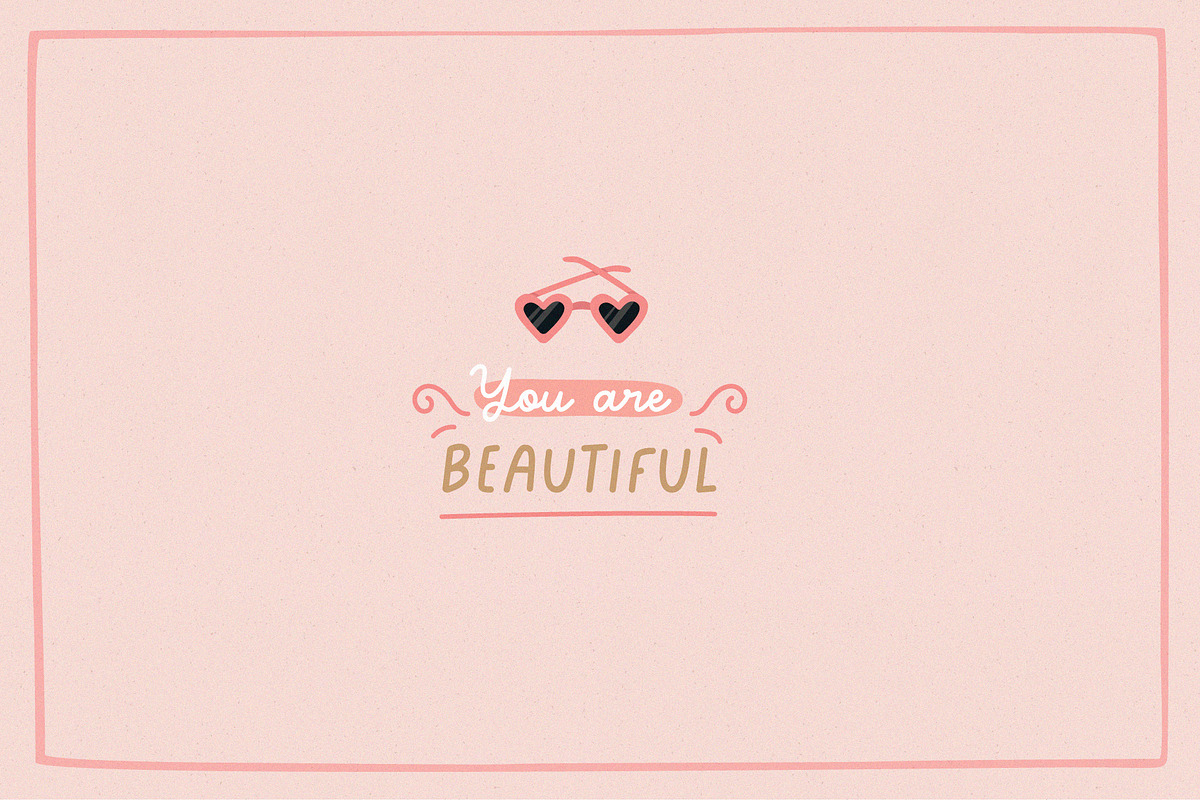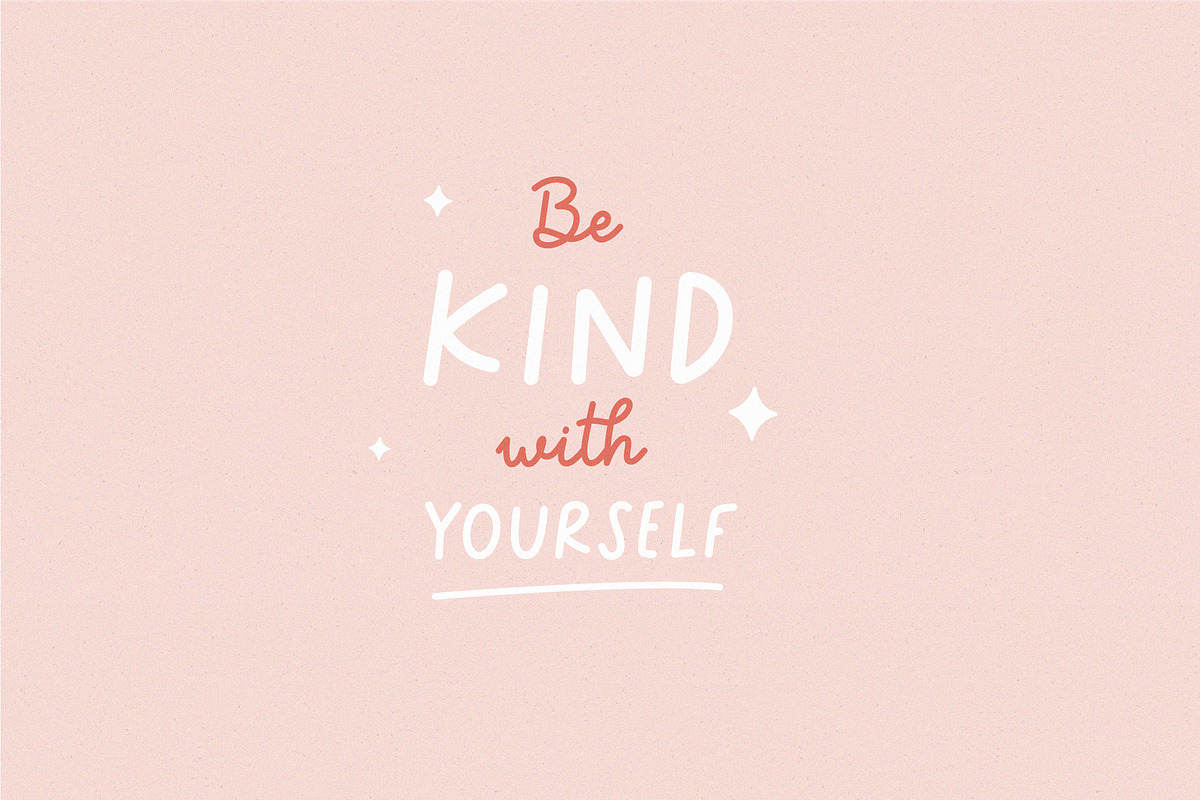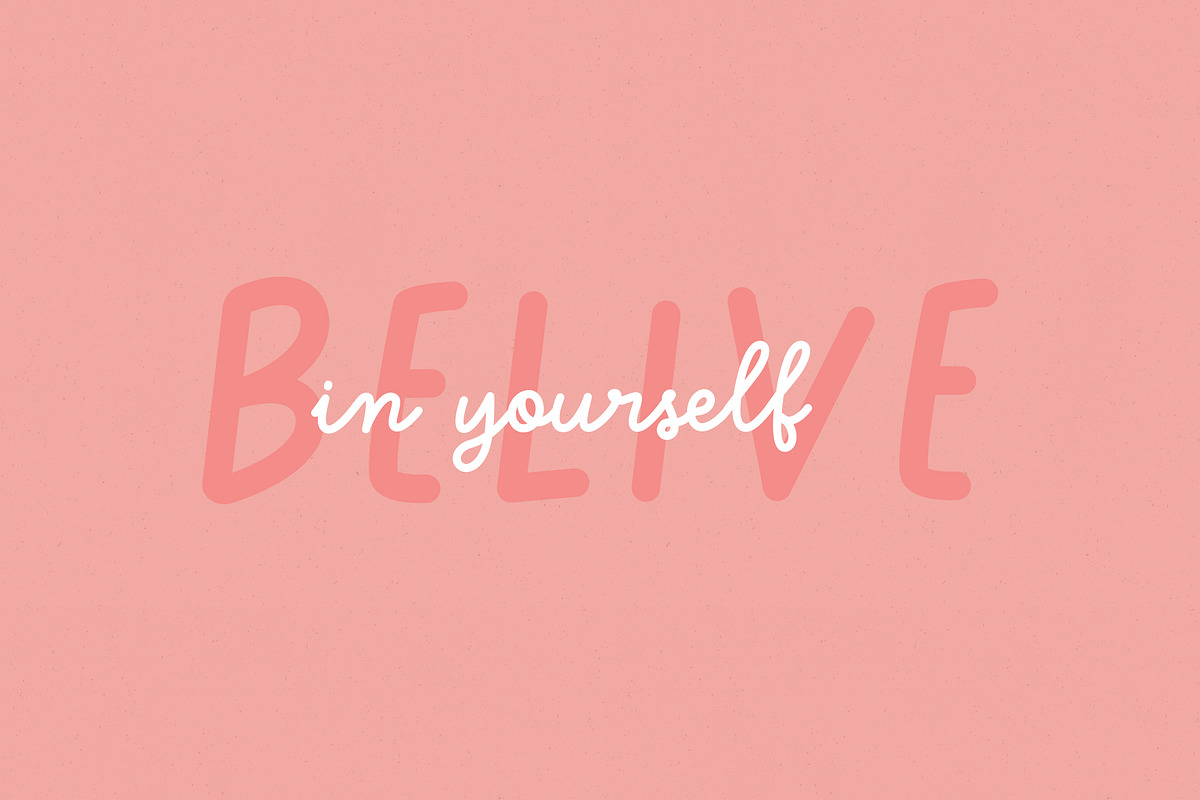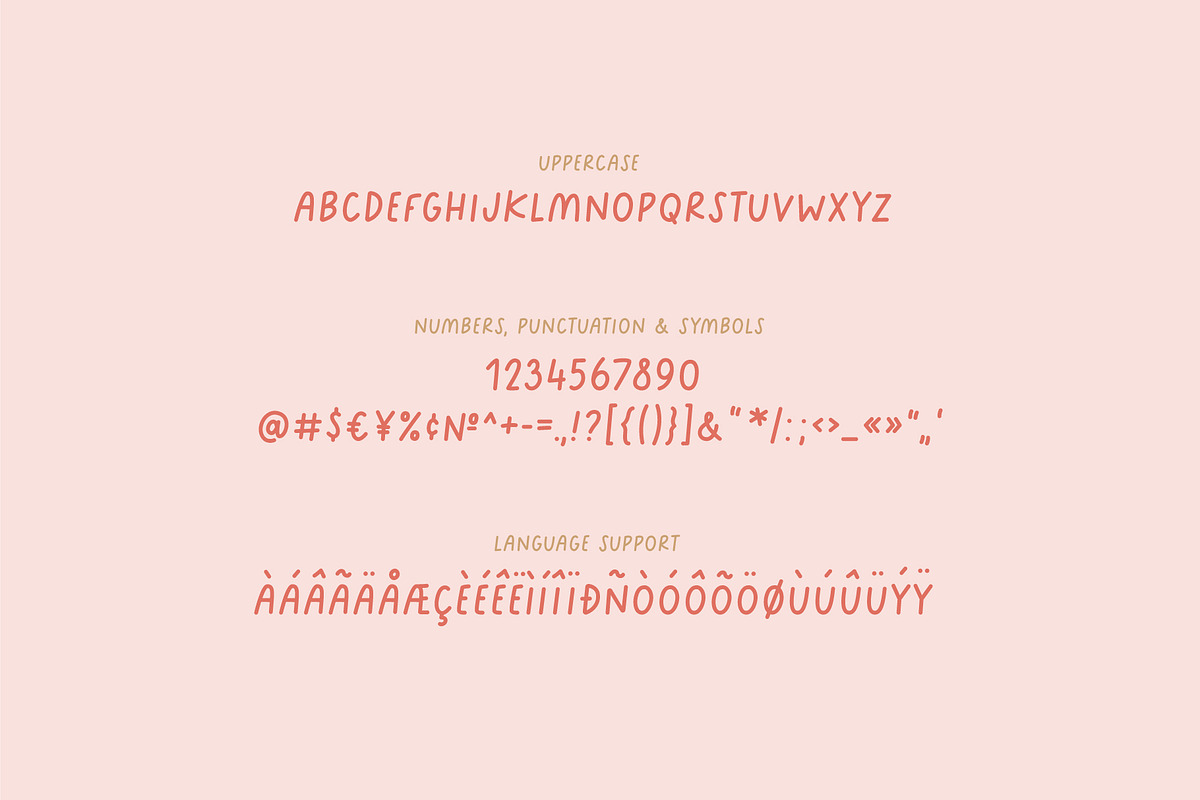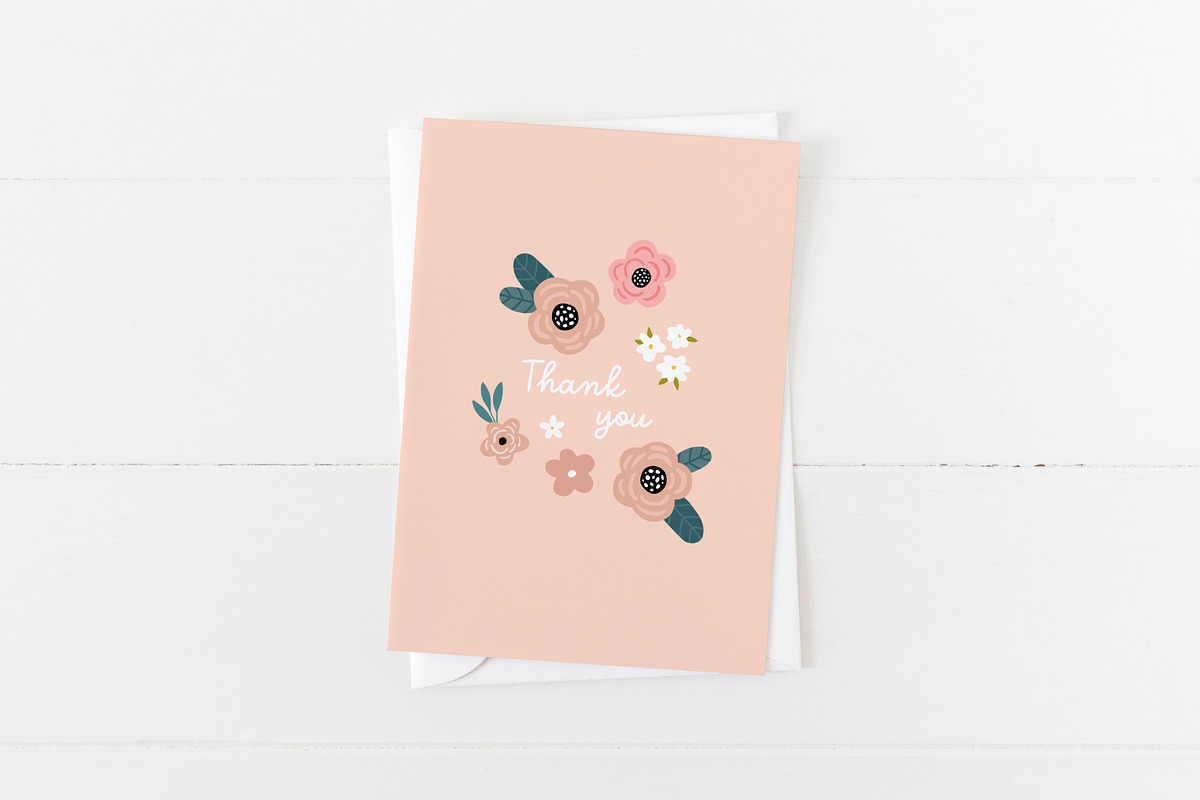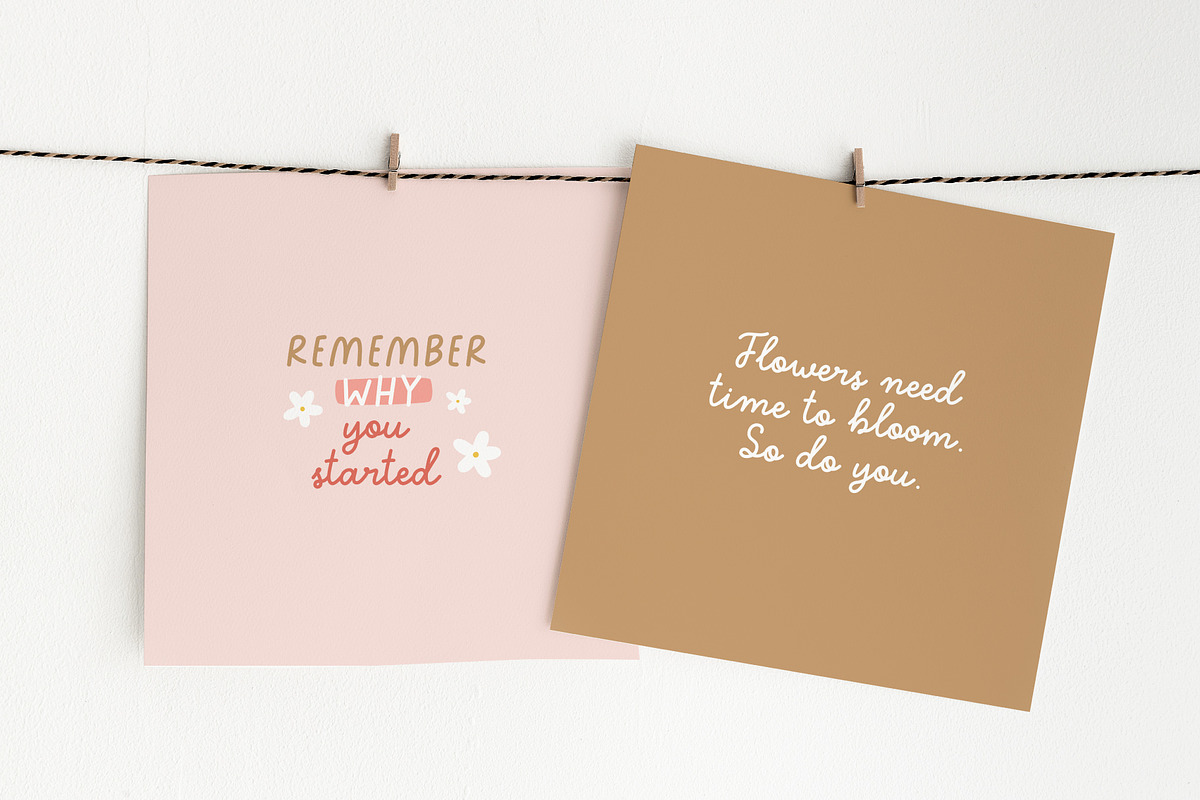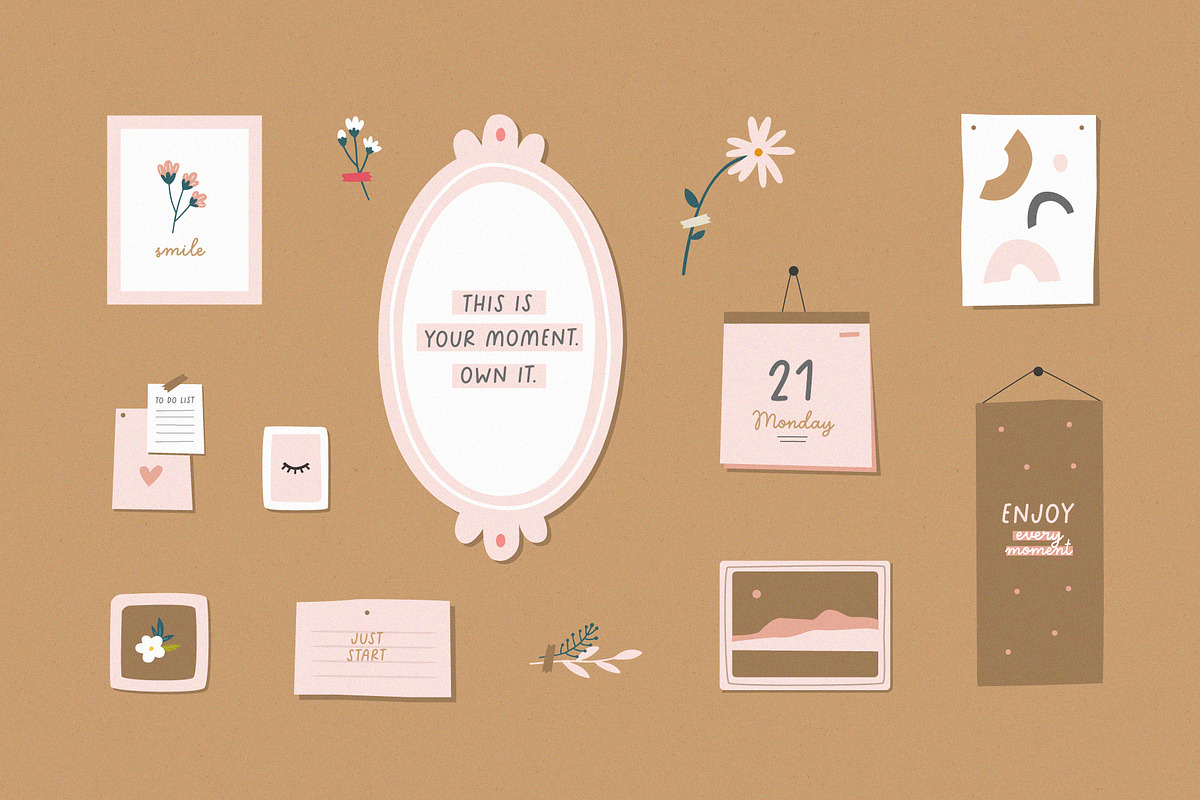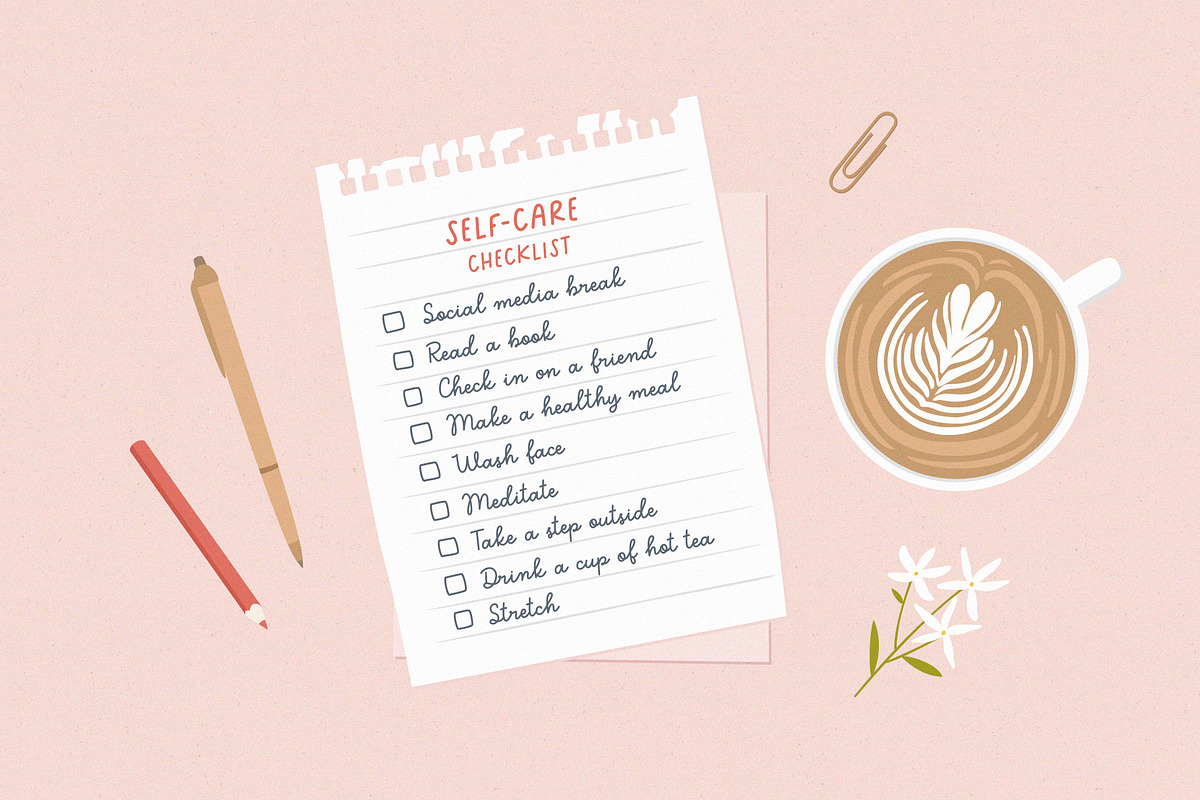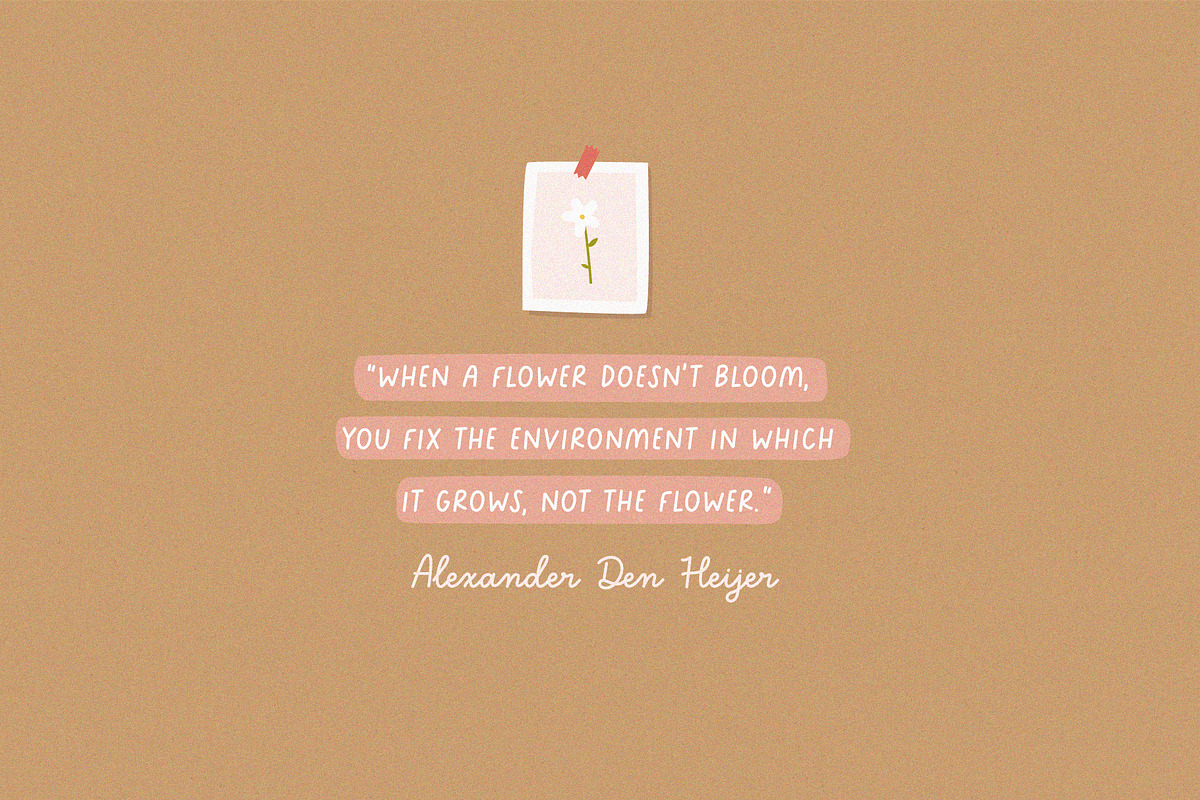
Charming lines | Font duo
Charming lines will be perfect for books, greeting cards, logos, posters or anything that requires a fun and happiness look!